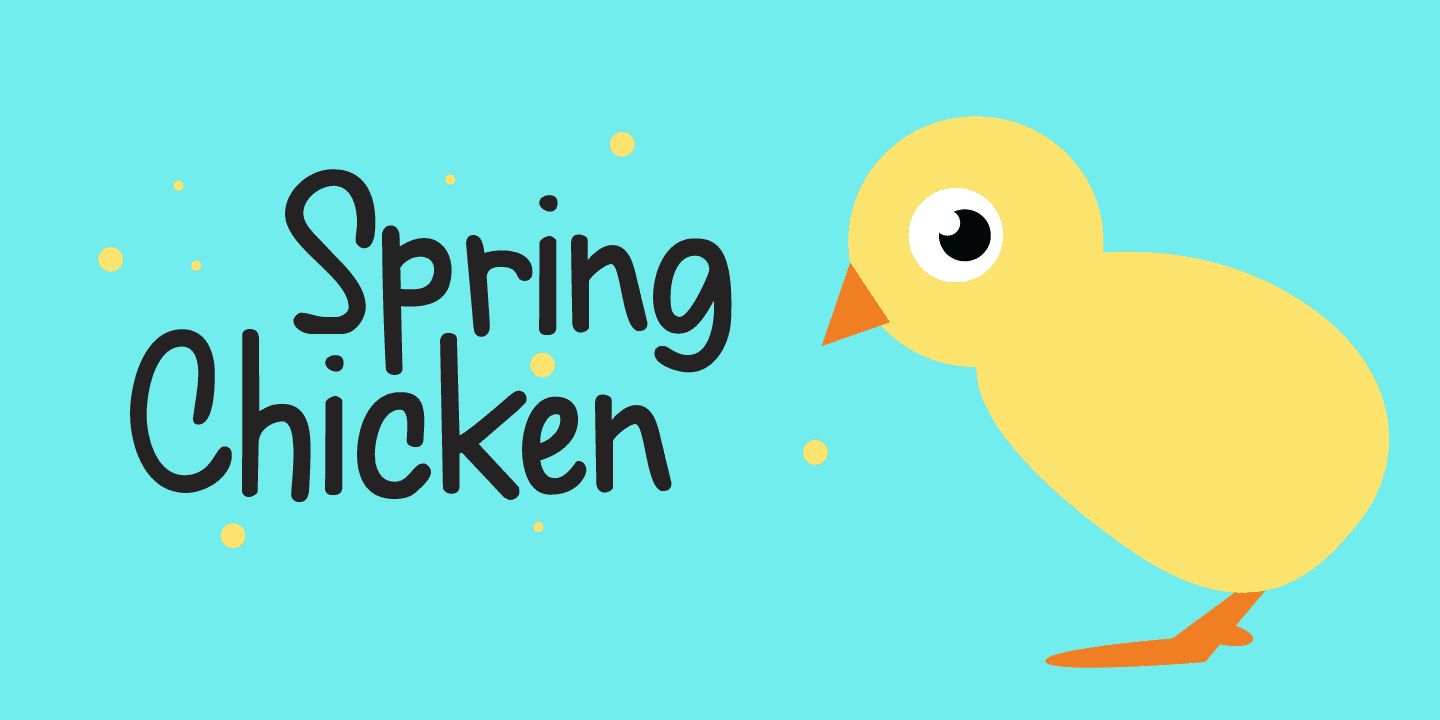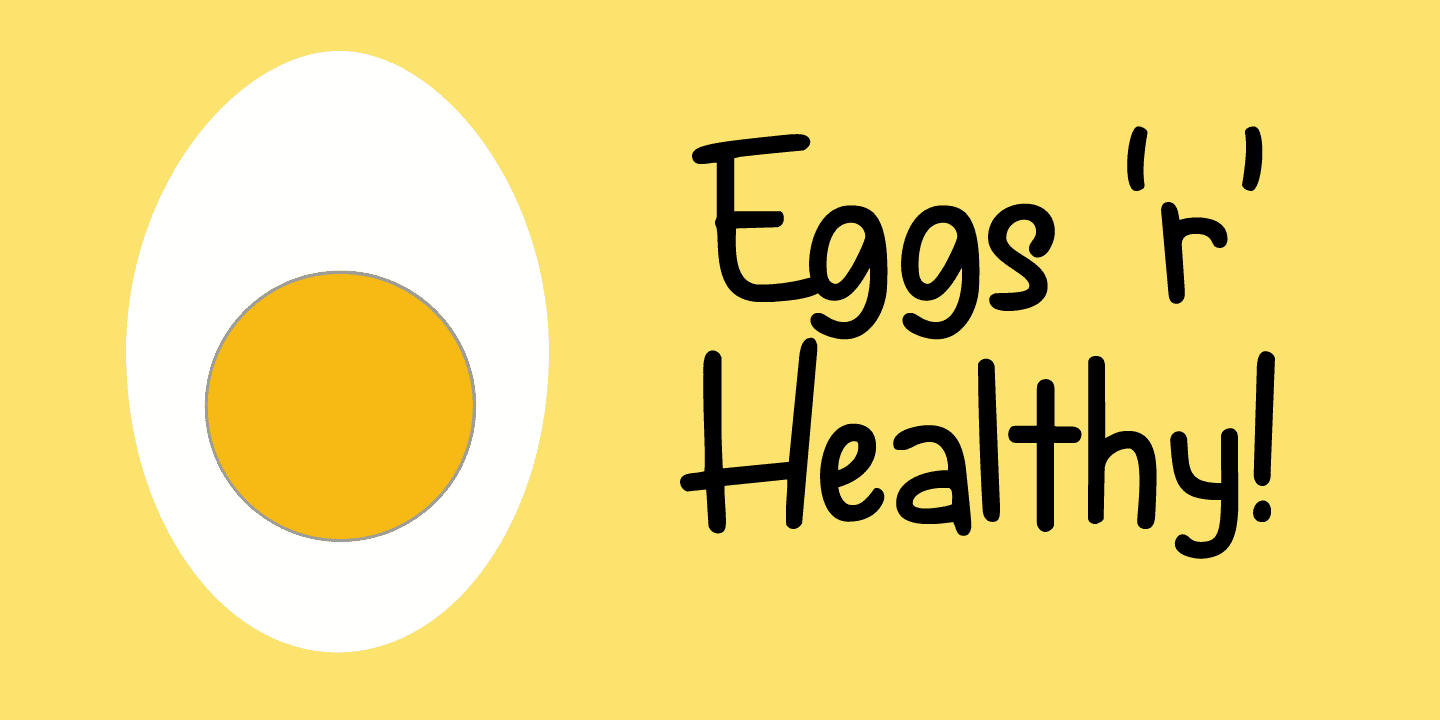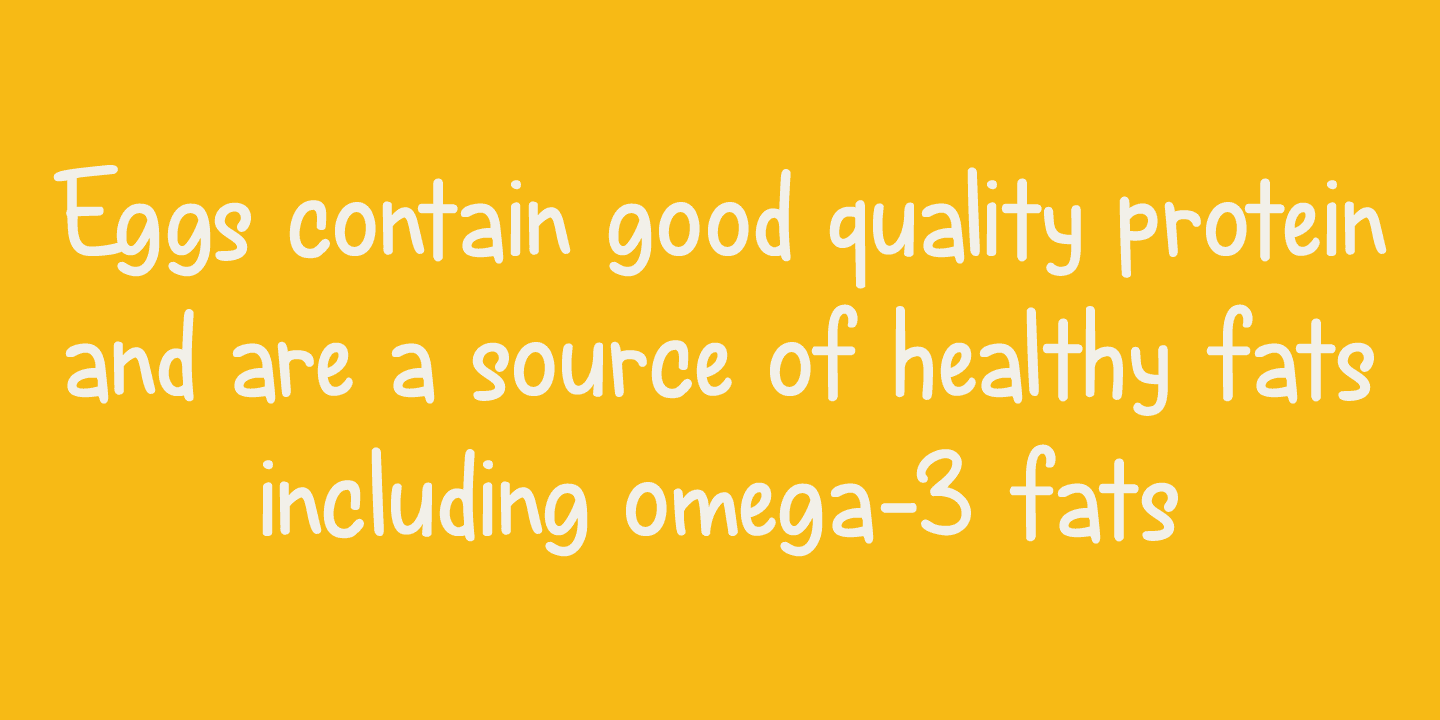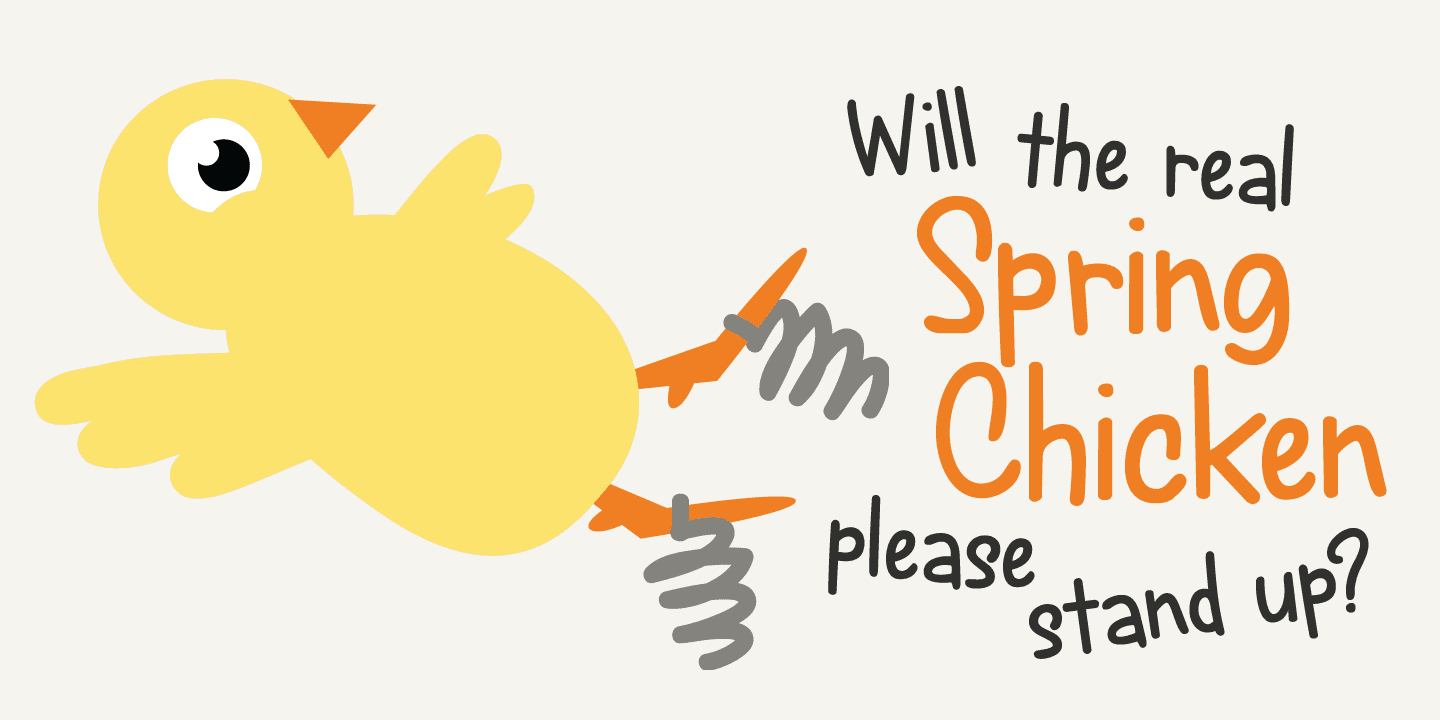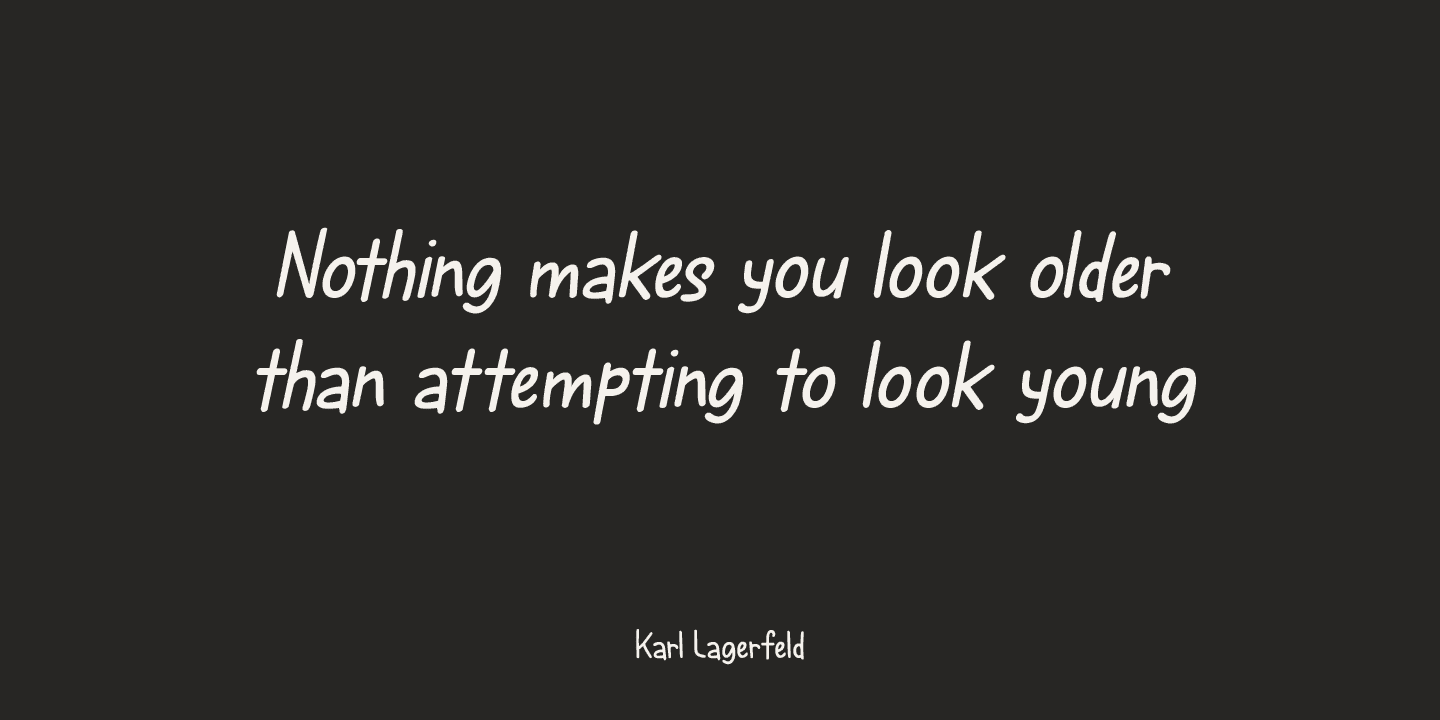
Spring Chicken Family (2 fonts)
So, after I recovered from that shock, I created this font and called it Spring Chicken!
Spring Chicken is a handmade cartoon-ish, script-ish, dunno-how-to-label-it-ish font.